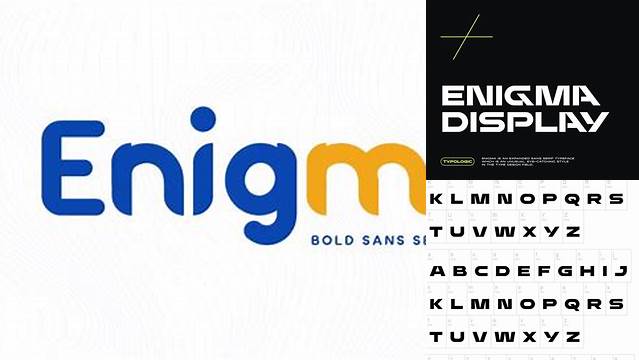
Are you on the hunt for a font that commands attention and exudes a modern, bold aesthetic? Look no further, guys! The Enigma Bold Sans Serif Font might just be the perfect typeface to elevate your design projects. In this comprehensive guide, we'll dive deep into what makes Enigma Bold so special, where you can snag it for free, and how to best utilize this striking font in your creative endeavors.
What Makes Enigma Bold Sans Serif Font So Special?
When it comes to selecting a font, Enigma Bold Sans Serif stands out from the crowd for several compelling reasons. Its clean lines, strong presence, and versatility make it a favorite among designers across various fields. Let's explore the key characteristics that define this remarkable typeface.
The Power of Boldness
First and foremost, the boldness of Enigma Bold is its defining feature. The thick strokes and substantial letterforms create a powerful visual impact, instantly grabbing the viewer's attention. This makes it an excellent choice for headlines, titles, and any element where you want to make a statement. Think about it, guys, when you need your message to resonate, boldness is your ally! The strong character weight ensures legibility even at a distance or in smaller sizes, making it a versatile option for both print and digital applications. The Enigma Bold's boldness isn't just about thickness; it's about confidence and presence, ensuring your message is heard loud and clear. When you use Enigma Bold, you're not just choosing a font; you're choosing a statement.
The Elegance of Sans Serif
The sans serif nature of Enigma Bold contributes to its modern and clean appearance. Unlike serif fonts, which have small decorative strokes at the ends of letters, sans serif fonts feature clean, unadorned lines. This simplicity lends Enigma Bold a contemporary feel, making it suitable for a wide range of design styles. Guys, imagine pairing this with minimalist designs – it's a match made in heaven! The absence of serifs also enhances readability, especially on screens, which is crucial for digital projects. The clean lines of Enigma Bold also lend it a sense of sophistication and elegance, making it a favorite for brands that want to project a modern and confident image. Whether you're designing a website, a brochure, or a logo, the sans serif nature of Enigma Bold ensures a sleek and professional look.
Versatility in Design
One of the most significant advantages of Enigma Bold is its versatility. This font can adapt to various design contexts, from corporate branding to editorial layouts. Its strong yet clean aesthetic makes it equally suitable for headlines, body text, and display purposes. Guys, that's like having a Swiss Army knife for your design toolkit! Its versatility extends to different media as well, working seamlessly in print, web, and mobile applications. The neutral yet impactful design ensures it pairs well with other fonts, giving designers the flexibility to create diverse visual hierarchies. Whether you're designing a website, a poster, or a mobile app, Enigma Bold can deliver a consistent and impactful visual experience.
Modern Appeal
Enigma Bold exudes a modern appeal that resonates with contemporary design trends. Its clean lines and strong presence align perfectly with the minimalist and streamlined aesthetics favored by many modern brands and publications. Imagine using this for a tech startup's branding – super sleek, right? This font is perfect for projects that aim to convey a sense of innovation, sophistication, and forward-thinking. The modern appeal of Enigma Bold also makes it a great choice for web design, ensuring your website looks current and professional. In today's design landscape, where visual appeal is paramount, Enigma Bold offers a typeface that is both stylish and functional.
Readability and Legibility
Beyond its aesthetic qualities, Enigma Bold prioritizes readability and legibility. The well-defined letterforms and consistent spacing ensure that text remains clear and easy to read, even in smaller sizes or at a distance. This is crucial for effective communication, especially in applications like websites and printed materials where the audience needs to quickly grasp the message. Guys, readability is key – no one wants to squint at tiny, blurry text! The carefully crafted design of Enigma Bold ensures that each character is distinct and easily recognizable, preventing confusion and enhancing the overall reading experience. Whether it's used for body text or headlines, Enigma Bold maintains its clarity, making it a reliable choice for all types of content.